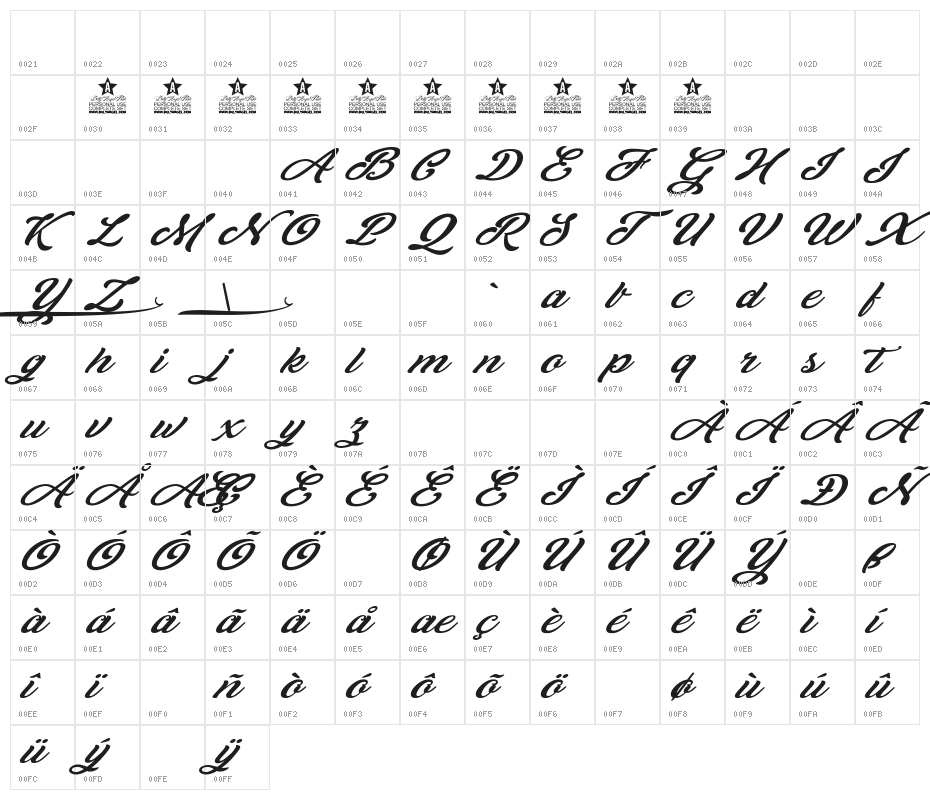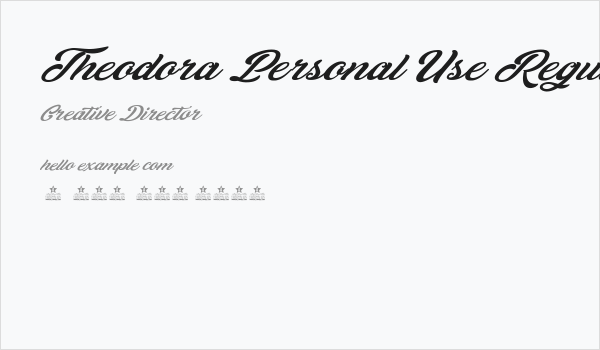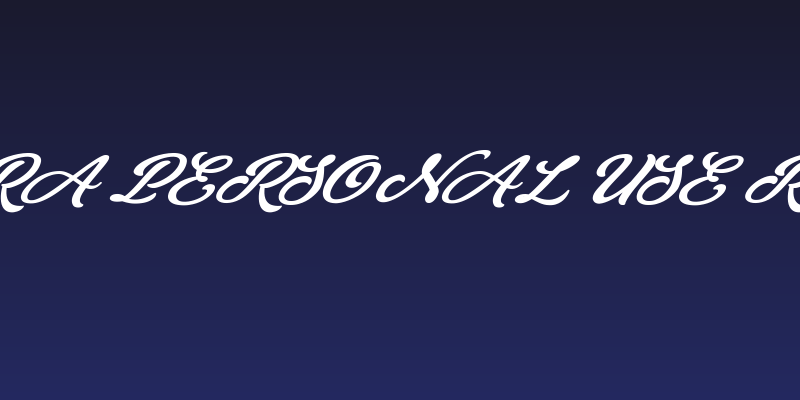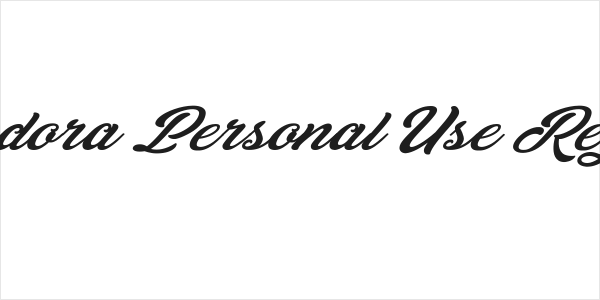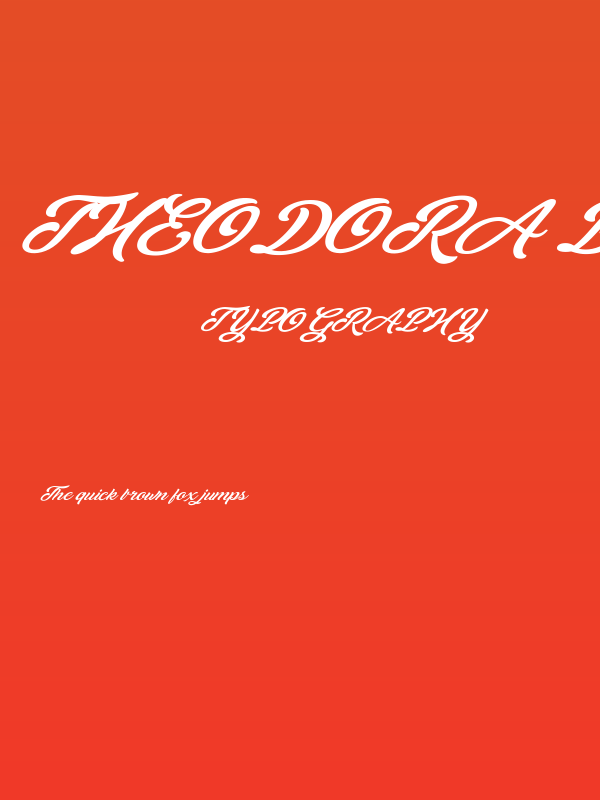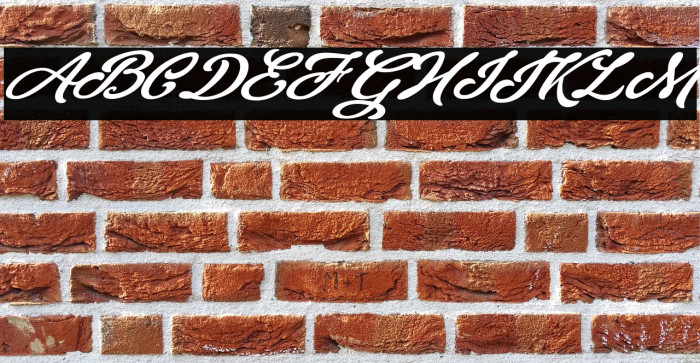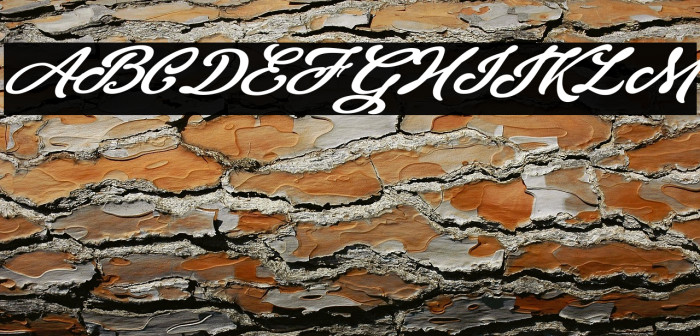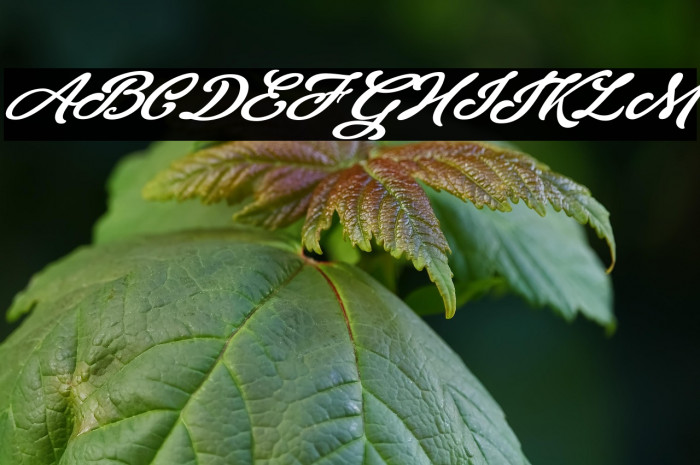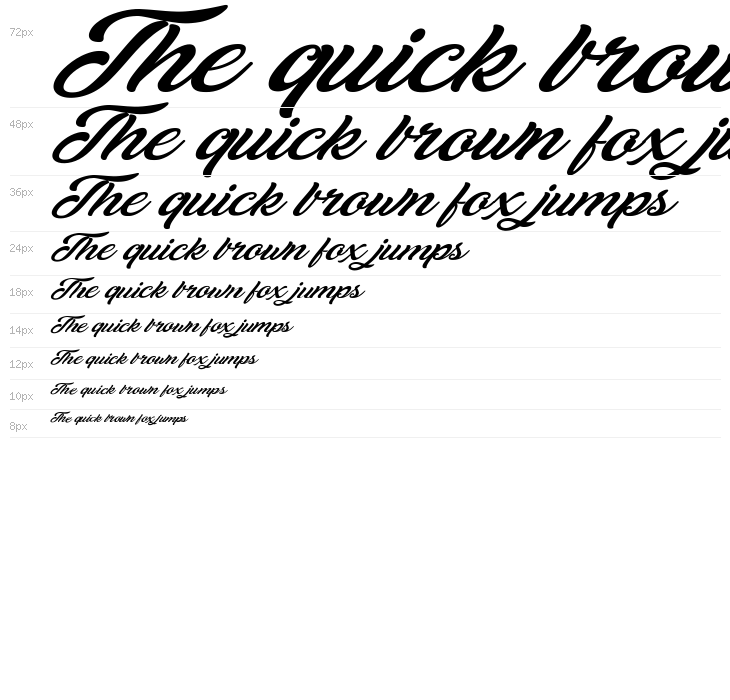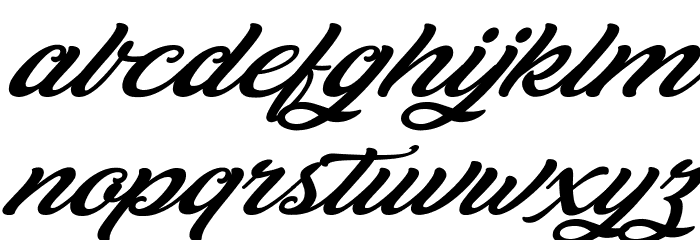
Theodora Personal Use Regular Font
Theodora Personal Use Regular Description
This font features an elegant and flowing script style, characterized by its cursive, handwritten appearance. The letters are interconnected, creating a seamless and fluid look. The strokes are bold and confident, with a slight slant that adds to its dynamic and sophisticated feel. The uppercase letters are ornate and decorative, while the lowercase letters maintain a consistent style, enhancing readability. This font exudes a sense of elegance and formality, making it suitable for a variety of creative projects.
| Proposed Projects | Ideal for wedding invitations, branding, greeting cards, and elegant packaging design. |